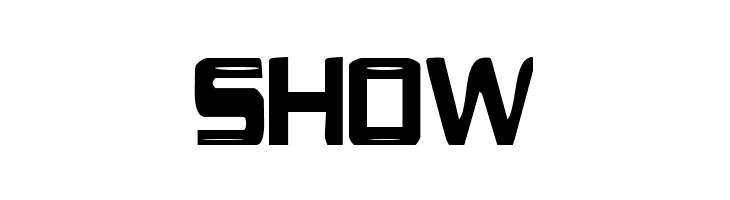
Misterios del Amor Personal Use Regular Font
- Font: Misterios del Amor Personal Use Regular
A bold, geometric font with strong lines and a modern, vintage appeal.